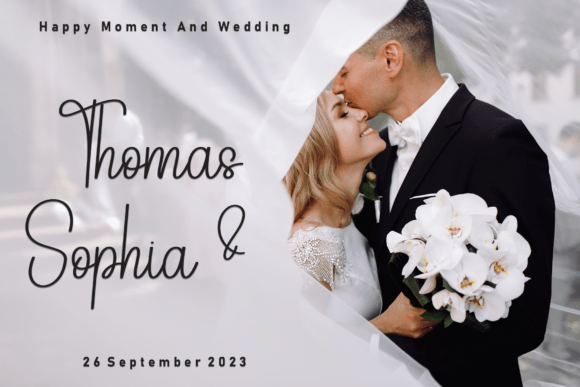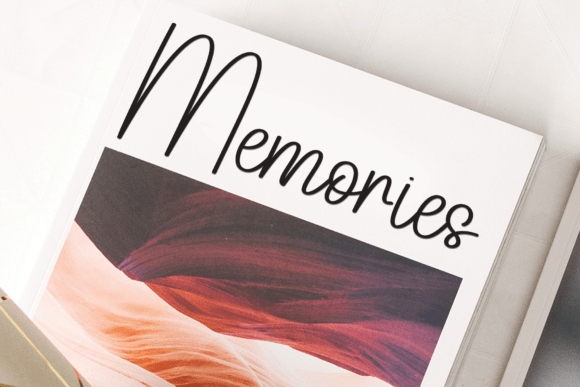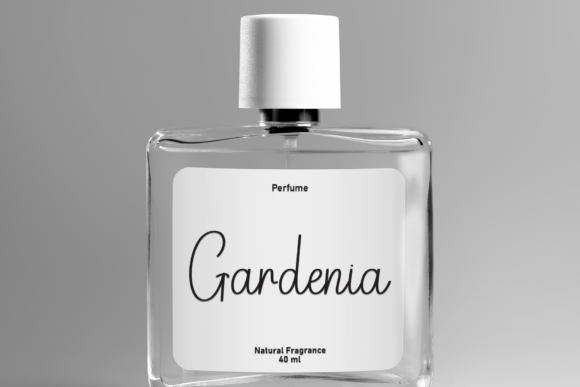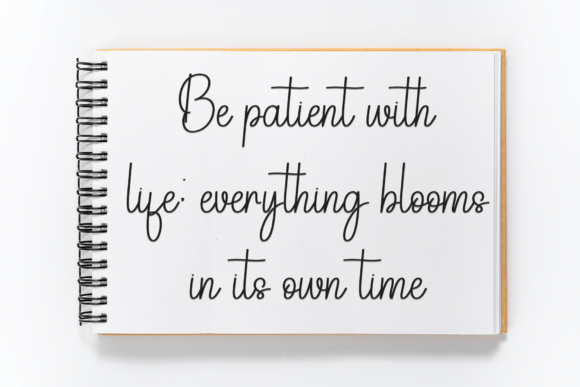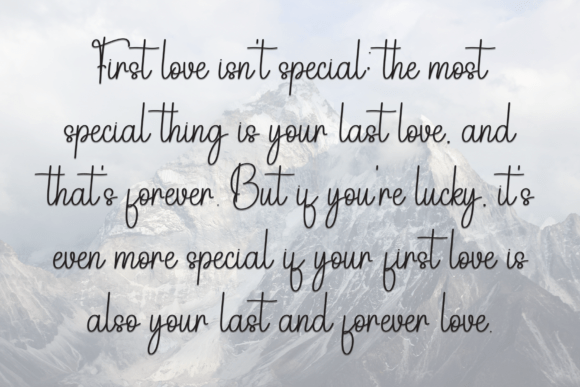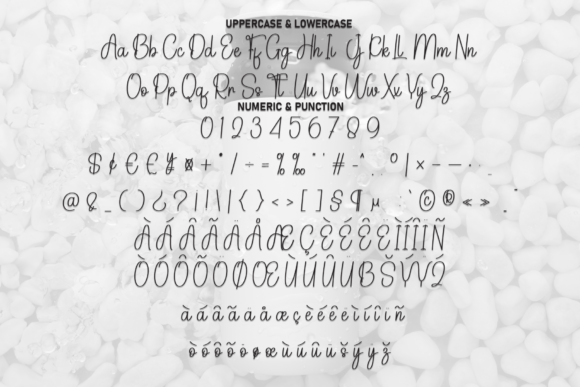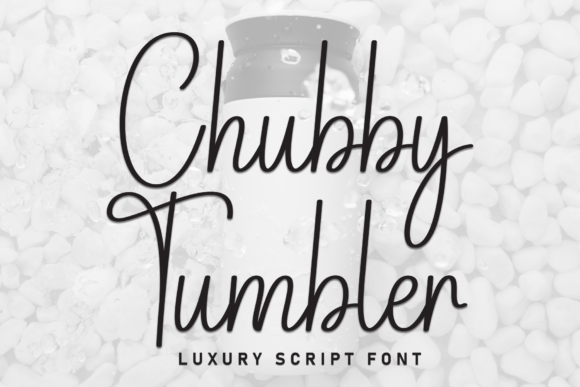
Introducing the Chubby Tumbler Font: A Whimsical Handwritten Delight
Are you tired of using the same old fonts for your creative projects? Look no further! The Chubby Tumbler Font is here to add a touch of magic to your designs. This expertly crafted handwritten font is poised to invigorate your creative ambitions with a lively and spirited touch. In this article, we’ll dive into the world of Chubby Tumbler Font and explore its unique features, uses, and benefits.
A Font that Shines with Sprightly Elegance
The Chubby Tumbler Font is a masterpiece of font design, boasting a unique blend of elegance and playfulness. Its handwritten charm makes it perfect for a wide range of creative projects, from wedding invitations and greeting cards to branding, packaging, and more. With its lively and spirited vibe, this font is sure to capture the attention of your audience and leave a lasting impression.
Unforgettable Wedding Invites and Greeting Cards
Are you planning a wedding or special event? The Chubby Tumbler Font is an excellent choice for creating unforgettable wedding invitations, save-the-date cards, and other stationery. Its whimsical and romantic feel will set the tone for a memorable celebration. Similarly, this font is perfect for crafting charming greeting cards for birthdays, holidays, and other special occasions.
A Font that Brings Joy to Your Creative Projects
The Chubby Tumbler Font is more than just a font – it’s an experience. Its unique character imparts a rejuvenating surge of joy wherever it’s used. Whether you’re a designer, crafter, or DIY enthusiast, this font will inspire you to create something truly special. With Chubby Tumbler Font, you can add a touch of personality and whimsy to your projects, making them stand out from the crowd.
Expand Your Artistic Horizons
The Chubby Tumbler Font is a versatile tool that can be used in a variety of creative projects. From digital art and illustration to scrapbooking and mixed media, this font can help you expand your artistic horizons. Its playful and lively vibe makes it perfect for projects that require a touch of humor, wit, and personality.
Key Features of the Chubby Tumbler Font
• Handwritten charm: The Chubby Tumbler Font boasts a unique, handwritten charm that sets it apart from other fonts.
• Lively and spirited: This font is perfect for projects that require a touch of energy and playfulness.
• Elegant and refined: Despite its playful vibe, the Chubby Tumbler Font is also elegant and refined, making it suitable for a wide range of creative projects.
• Versatile: This font can be used in digital art, illustration, scrapbooking, mixed media, and more.
Tips for Using the Chubby Tumbler Font
Here are some tips for getting the most out of the Chubby Tumbler Font:
• Experiment with different sizes and colors: Play around with different sizes and colors to find the perfect combination for your project.
• Pair it with other fonts: The Chubby Tumbler Font pairs well with other fonts, so don’t be afraid to experiment with different combinations.
• Use it for headings and titles: This font is perfect for headings and titles, where its playful and lively vibe can really shine.
The Chubby Tumbler Font is a mesmerizing handwritten font that’s poised to invigorate your creative ambitions. With its lively and spirited touch, this font is perfect for a wide range of creative projects, from wedding invitations and greeting cards to digital art and illustration. Expand your artistic horizons with this enthralling font, and discover a world of creative possibilities.